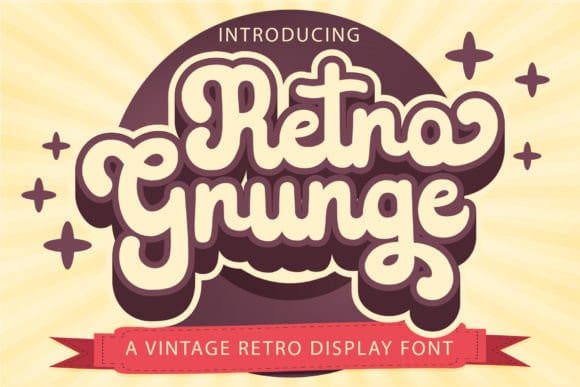
Retro Grunge Font
Retro Grunge Font is a cool, vintage-style display font. Use it to add that special retro touch to any design idea! It can be used for logos, branding, invitations, stationery, wedding designs, social media posts, and much more!